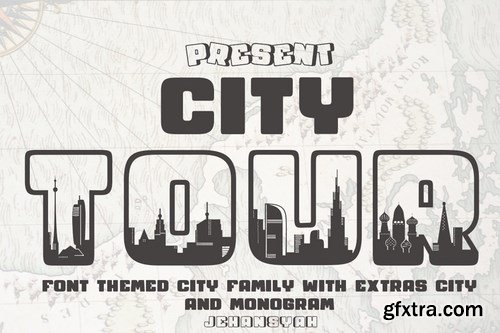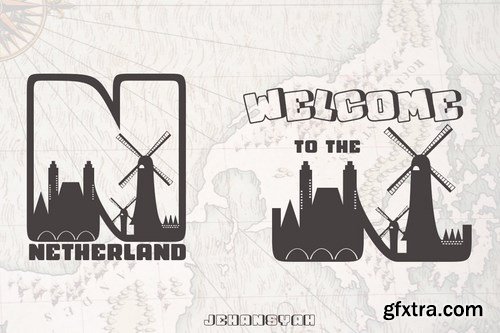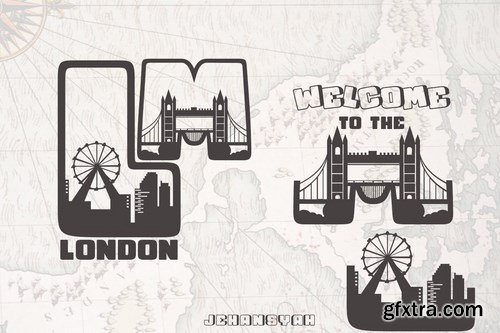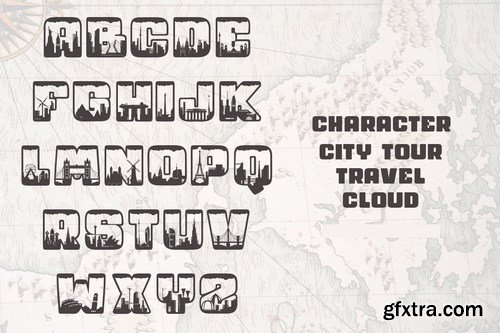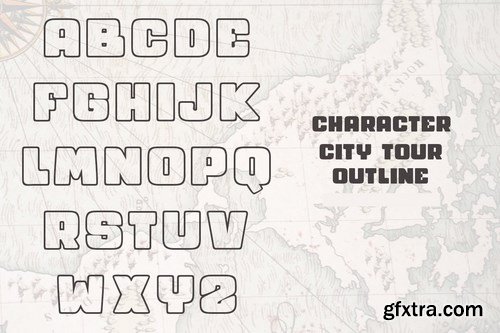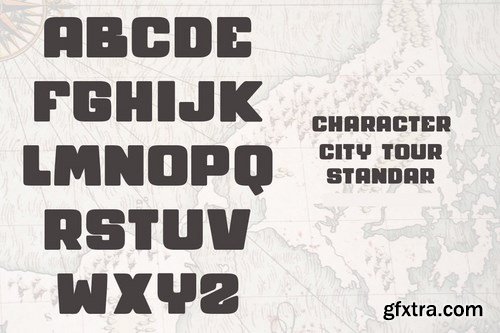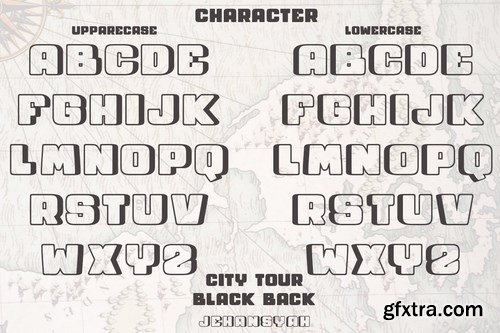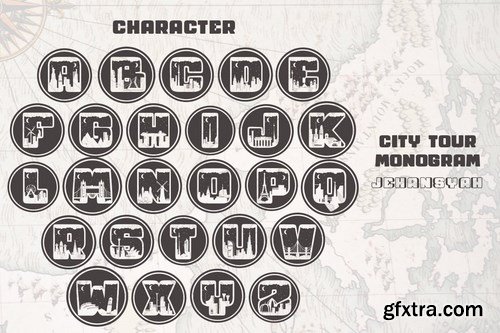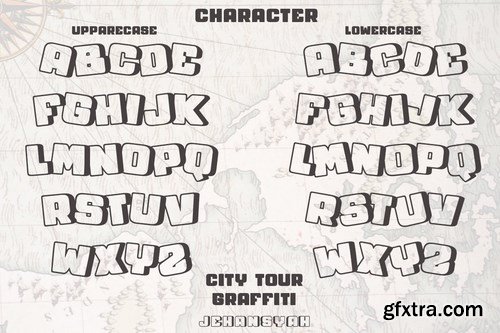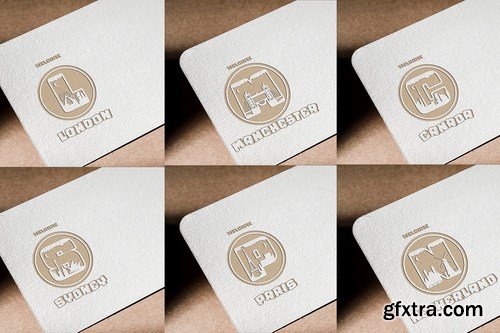
City Tour Font
CITY TOUR font is a combination of fonts and designer additions to adapt alphabetically to the characteristics of each country, with the aim of introducing a country to the designer, turning two works into one shape, this is what happens if you want a work that can say woww. font family, use everything according to your needs, include : 10 character font and extras dingbats city TTF and OTF and any ZIP file to download easily